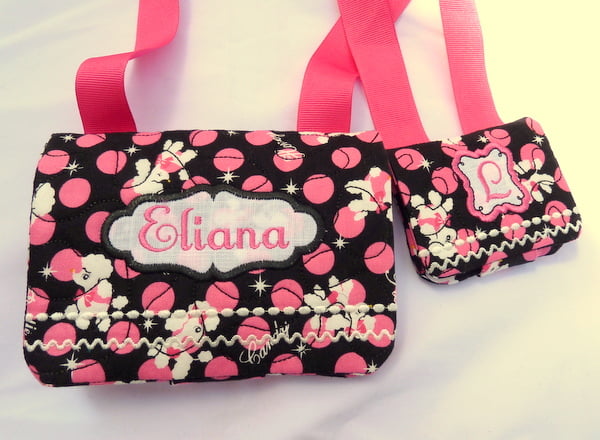
Free BX Font – Anna
This free BX font is perfect for personalizing your gift giving. The size of this font is approximately 3/4″ You see it used on our girl/doll purses for the 6×10 hoop. It covers well for use on blankets and blanket labels. All upper and lower case letters, numbers 0-9, and commonly used punctuations are included.
Free BX Font used on our Girl & Doll Purses